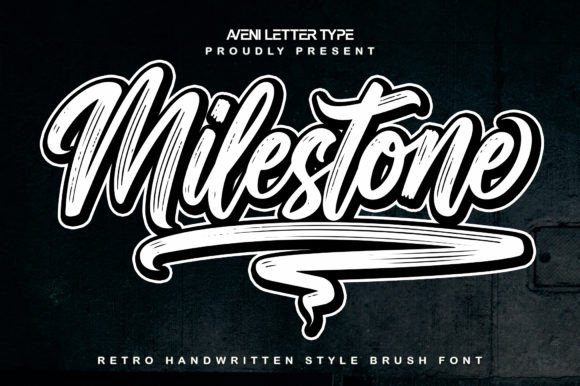
Introducing Milestone Font, a stunning retro styled handwritten font that will take your design projects to the next level. Crafted by Aveni Letter Type, Milestone Font is a perfect blend of elegance and authenticity. This font family has a unique and vintage vibe that will grab your audience's attention and make your project stand out.
Milestone Font is a versatile font family that can be used for various design purposes. It is ideal for product packaging, branding projects, magazine covers, social media posts, wedding invitations, or any design project that requires a touch of sophistication. This font family can also be used to create expressive words that stand out above the background.
Milestone Font is not your average font family. It has a distinct personality that will evoke emotions and feelings from your audience. The retro style of this font will take your audience on a trip down memory lane and make them feel nostalgic. Using Milestone Font will make your project unique and unforgettable.
With Milestone Font, you can unleash your creativity and design stunning projects that will impress your audience. The font family comes in different styles, including regular, italic, bold, and bold italic, giving you more design options. The font family is also easily readable, ensuring that your message is communicated effectively.
In conclusion, Milestone Font is an excellent font family for anyone looking to elevate their design projects. Its unique retro style, versatility, and readability make it the perfect choice for designers, marketers, and anyone looking to make an impact. Download Milestone Font today and see your projects come to life.